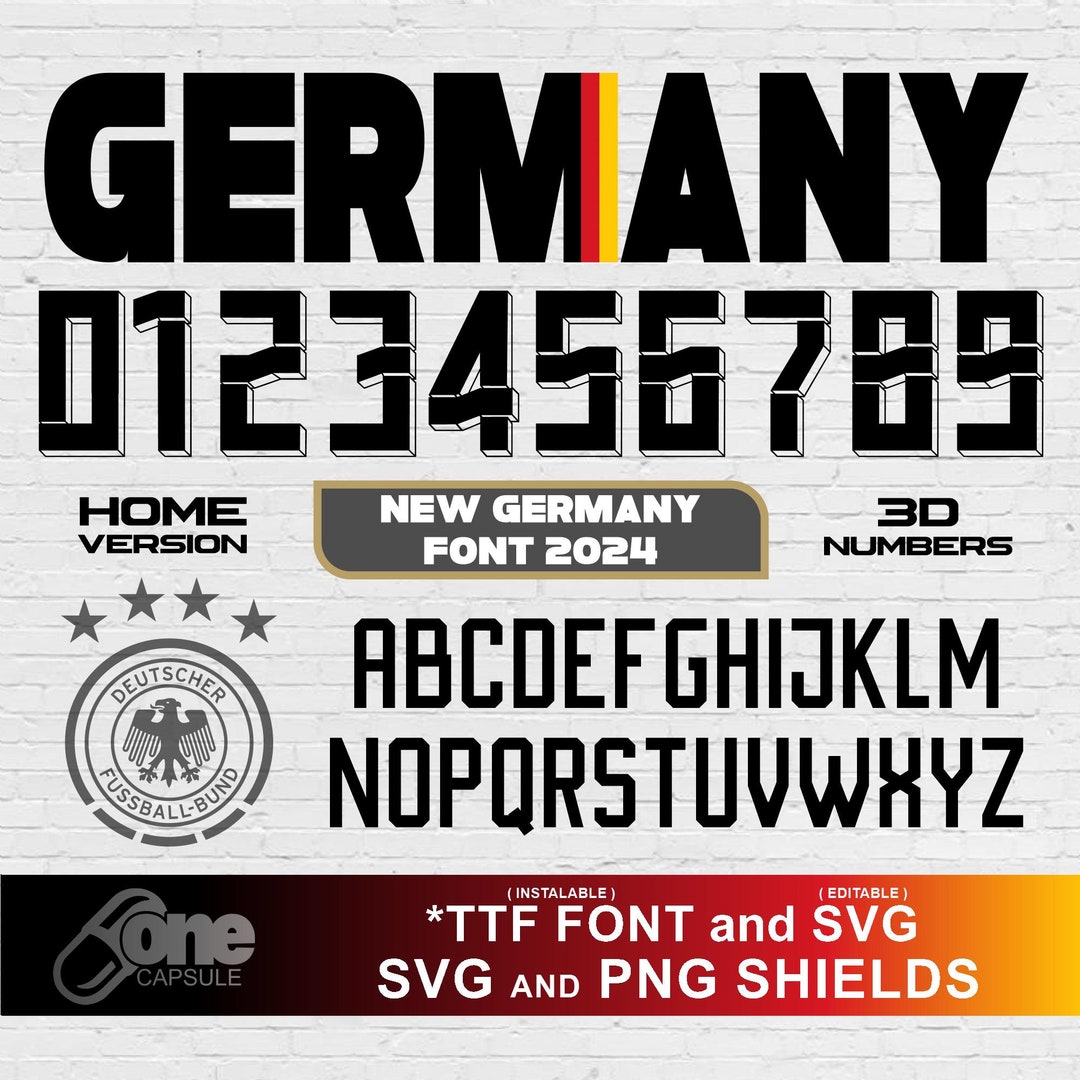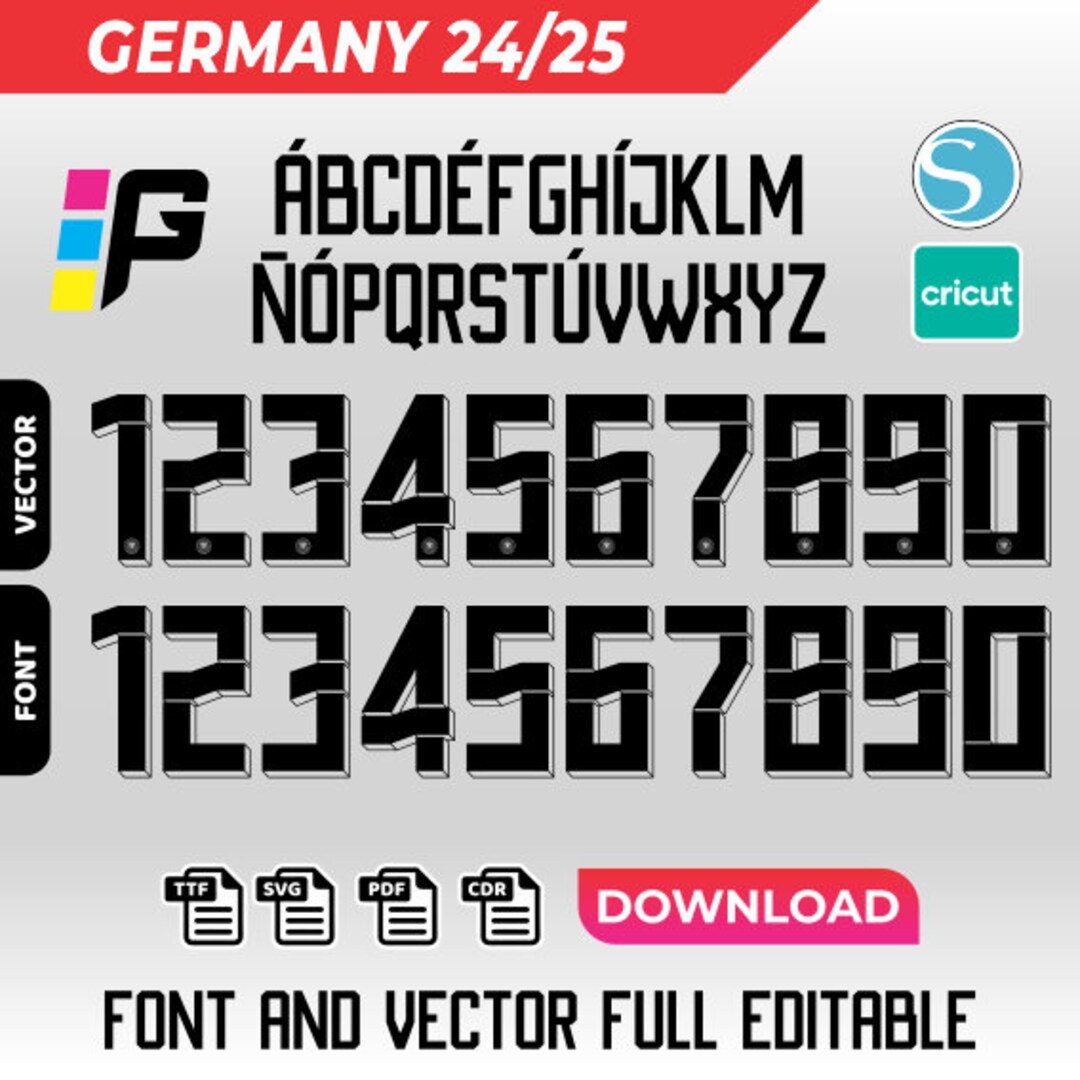
Thank You! Germany Euro 2024 Font. Available in OTF and Vector (EPS). We can give you a better look at the Germany Euro 2024 kit font.
The base typeface is actually the same for the home and away kits, but there is one importan. The home font has a 3D 1990s style, while the away font is flat - this results in a totally different look, despite the same base. Just like at the 2022 World Cup, the German national team will not be using the new streamlined Adidas Euro 2024 kit typeface but rather a bespoke kit font.
This is the page for Germany font that will be used in Euro 2024. We have font that you can use as Germany Euro 2024 font in OTF format, both for home and away kits. Germany 2024 Font Home & Away (OTF & Vector) Euro 2024, Germany, National Team Germany Euro 2024 Font.